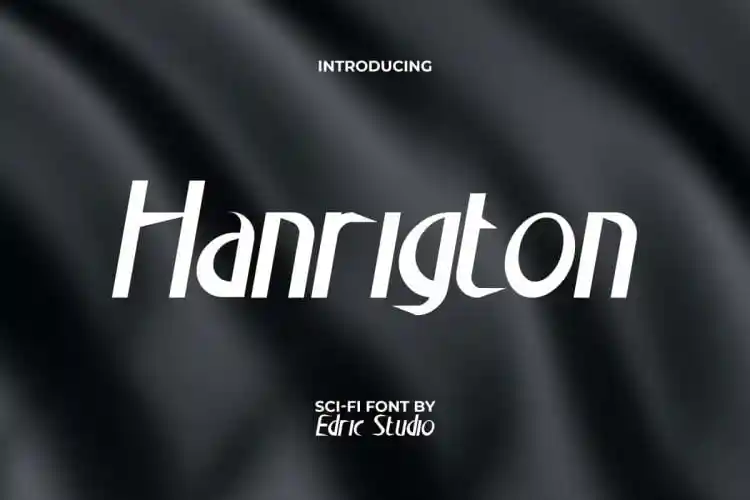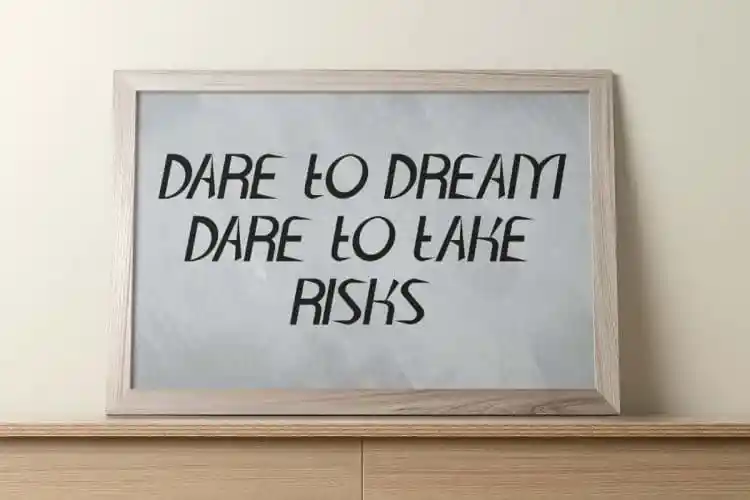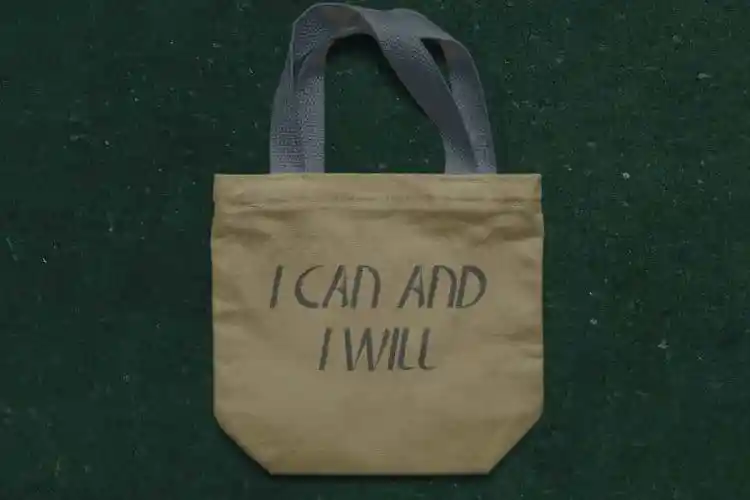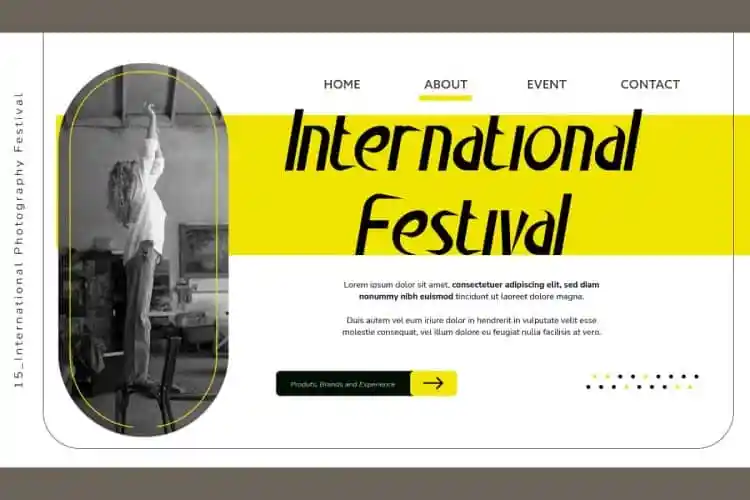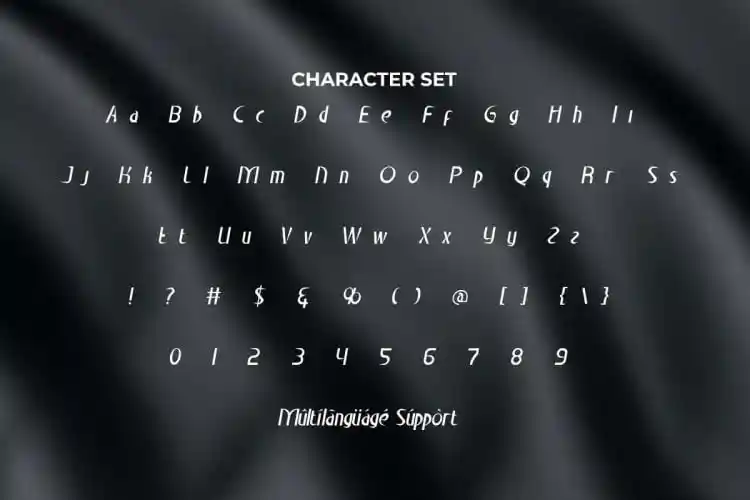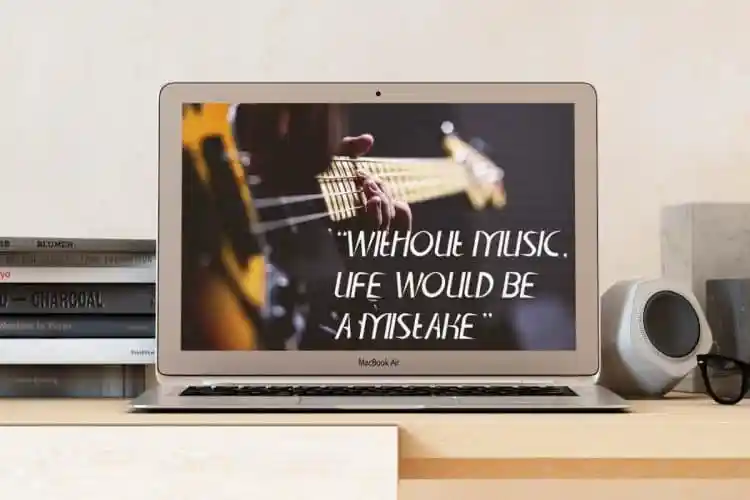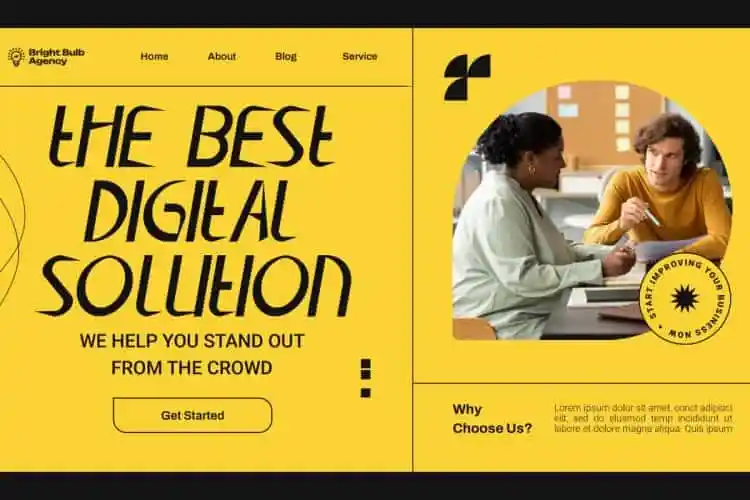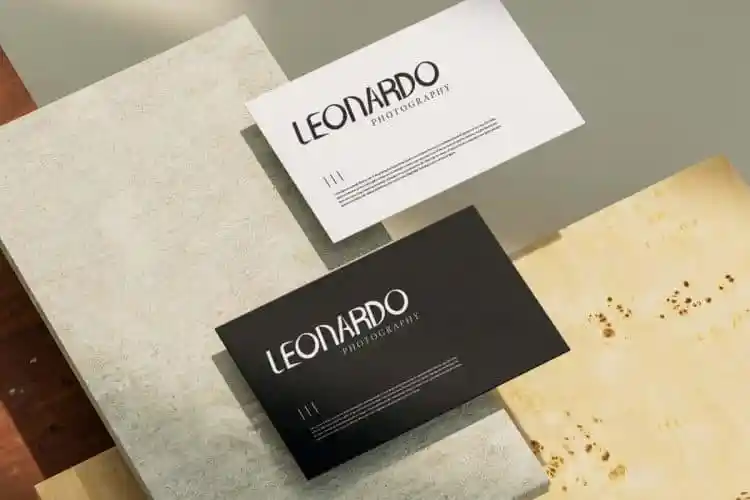
Hanrigton Font a sci-fi futuristic display font that is made sophisticated in its own style. It will be suitable for contemporary design use. Whether you design banners, billboards, brochure, business cards, flyers, headers, posters, quotes, science fiction book covers, screen printing bags, titles, video games, websites, and more.
Hanrigton Display Font includes a complete set of Uppercase and Lowercase Letters, Numbers, Punctuation, and Symbols. Typography specially developed to provide a new innovation that embodies the essence of science fiction. This will encourage any creative project that requires a touch of the future, such as band, clothing brands, films, handicraft, IT consulting firm, movie, musician, photography, and others.